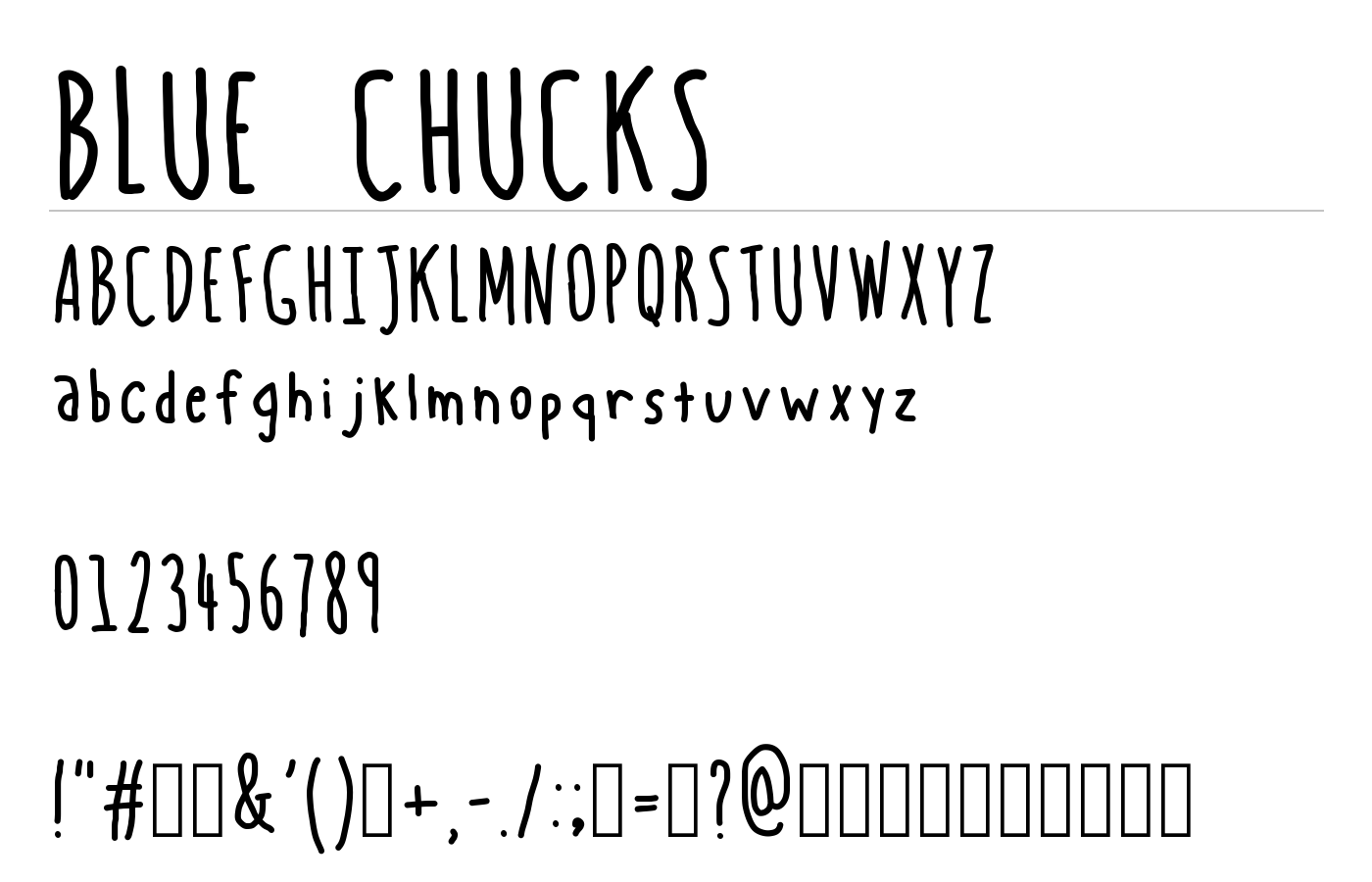
BLUE CHUCKS is a tall, narrow sans serif font with a hand-drawn, playful character. Its thin, irregular strokes and casual letterforms give it a friendly and informal feel, making it ideal for creative and youthful designs such as posters, branding, or children’s materials. The font’s unique style adds personality while remaining clear and easy to read.
BLUE CHUCKS Font
About BLUE CHUCKS Font